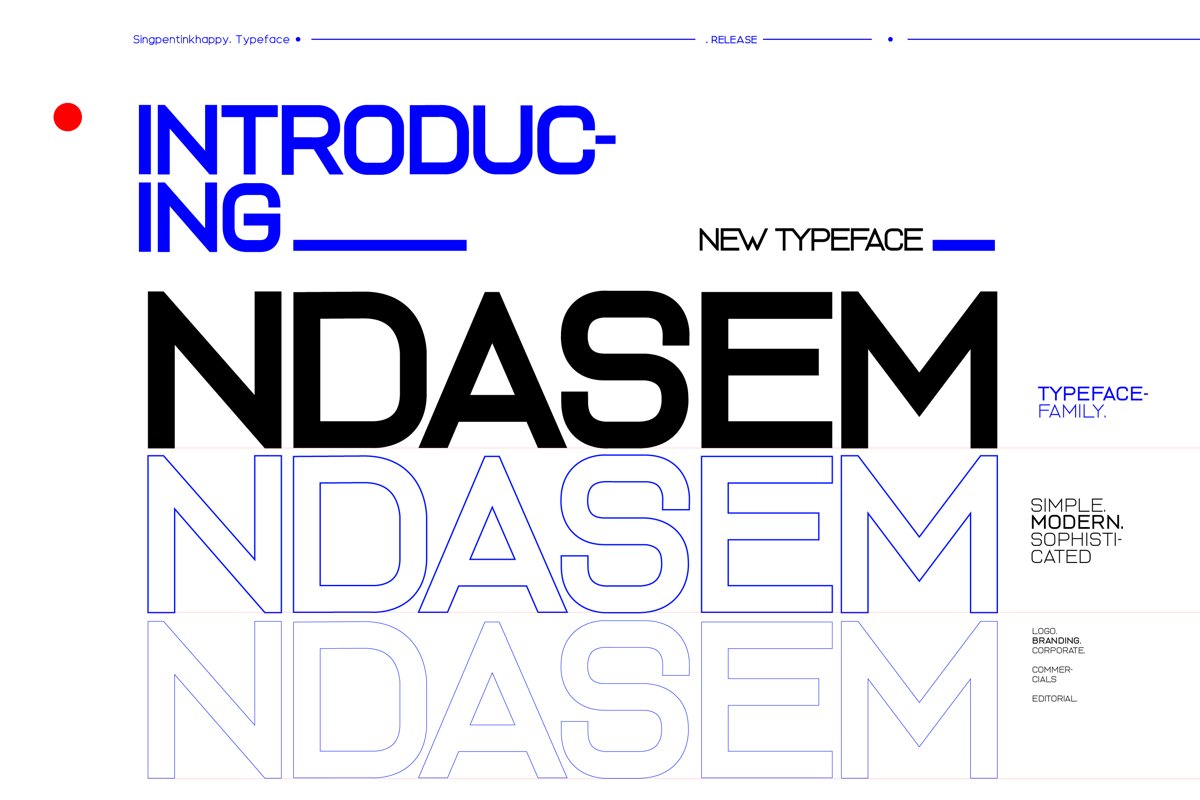
Ndasem Typeface
Ndasem is a strong minimalist sophisticated modern typeface.
Ndasem is great for branding, logo, editorial, fashion, design, travel, and for graphic design typography experiment will very interesting.
Typeface
• Ndasem Light. for Caption
• Ndasem Regular. for Bodytext
• Ndasem Bold. for Headline and subhedline
• Ndasem Black. for Logo and Typography experiment
Feature
Italics | Numbers | Punctuation | Glyphs | Multilingual